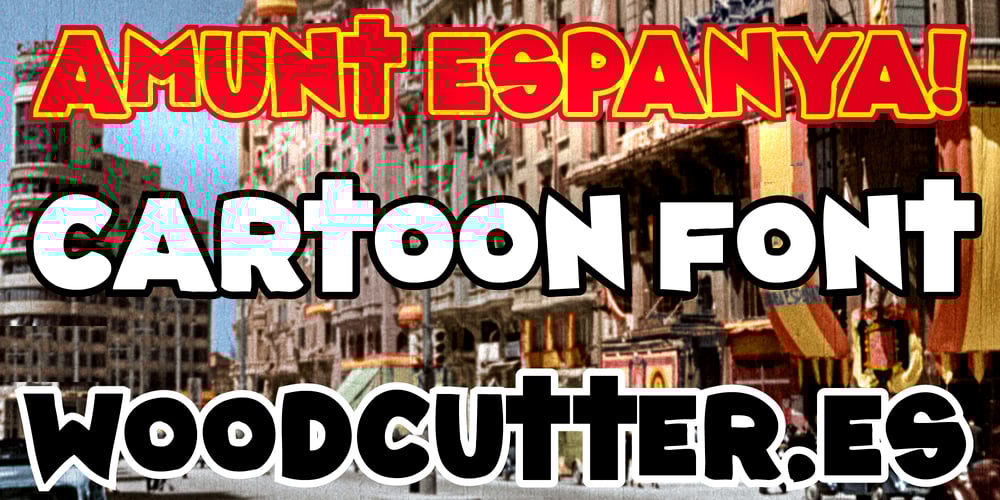
Amunt Espanya Font Family was designed by Jordi Manero and published by Woodcutter. Amunt Espanya contains 1 styles and family package options. “Amunt Espanya!” is a comic-style font, solid and fun, perfect for adding a cheerful and dynamic touch to your designs. It features uppercase letters that capture the vibrant and casual essence of comic style. Ideal for posters, titles, and any project needing a light-hearted and appealing approach, this font combines robustness with a playful vibe, bringing energy and character to your compositions.